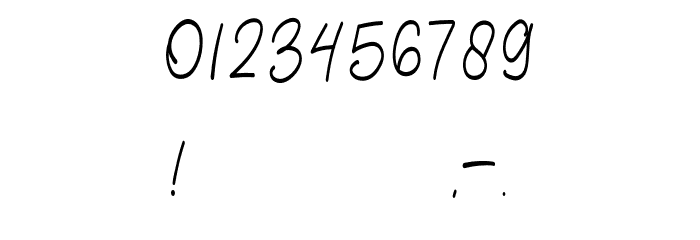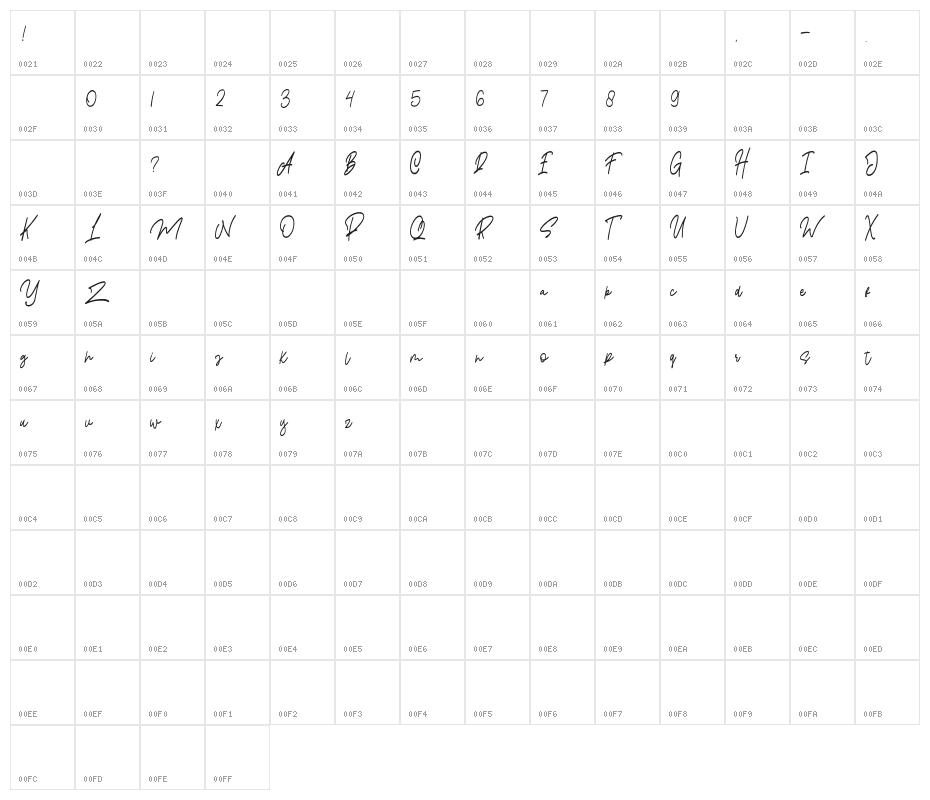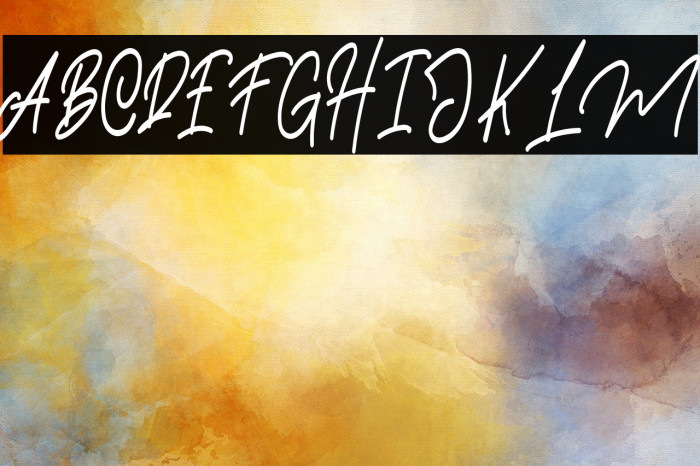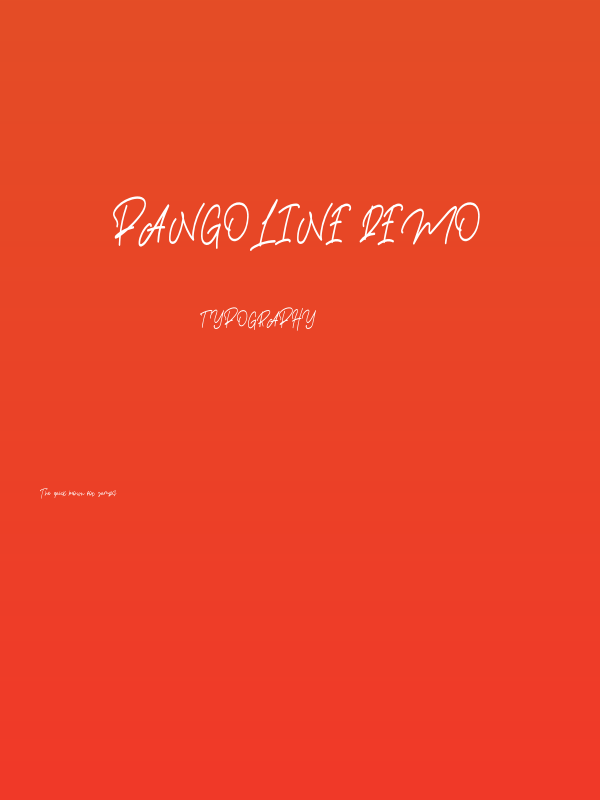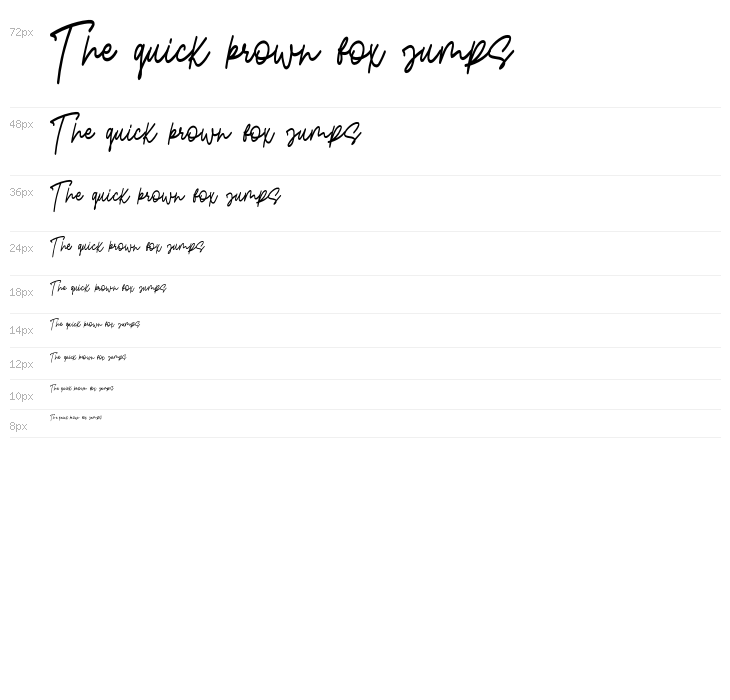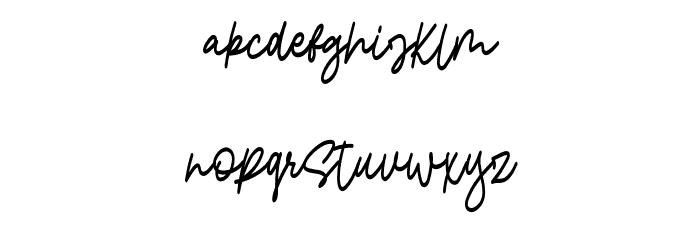
Pangoline Demo Font
Pangoline Demo Description
This font features a lively and flowing script style, characterized by its elegant, cursive letterforms. The uppercase letters are bold and sweeping, with a dynamic slant that adds a sense of motion and grace. The lowercase letters maintain a consistent flow, connecting smoothly in a way that mimics natural handwriting. The numerals are clear and legible, maintaining the same cursive style. Special characters are integrated seamlessly, ensuring a cohesive look across all text elements. The overall appearance is both sophisticated and approachable, making it suitable for a variety of creative applications.
| Use Case | Logos, Invitations, Personal stationery |
| Proposed Projects | Ideal for wedding invitations, greeting cards, branding projects, and personal stationery. |